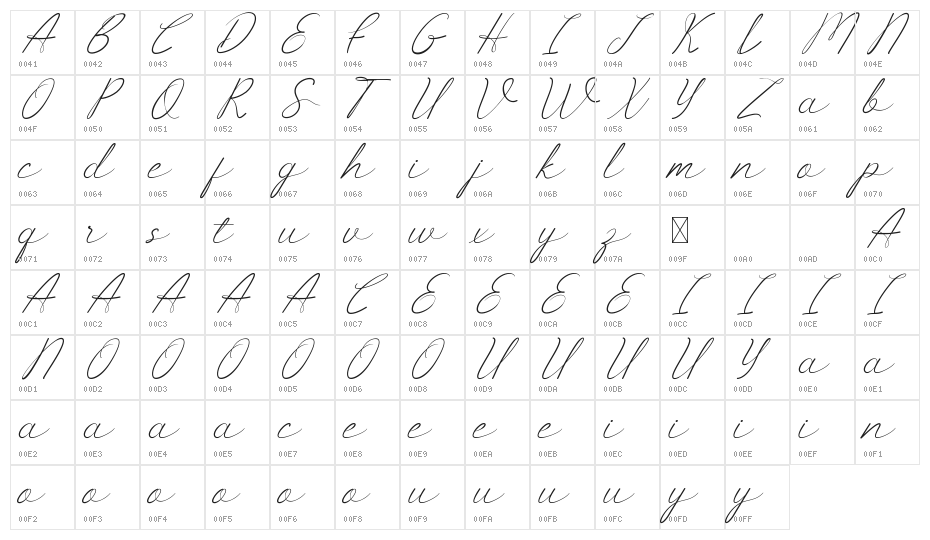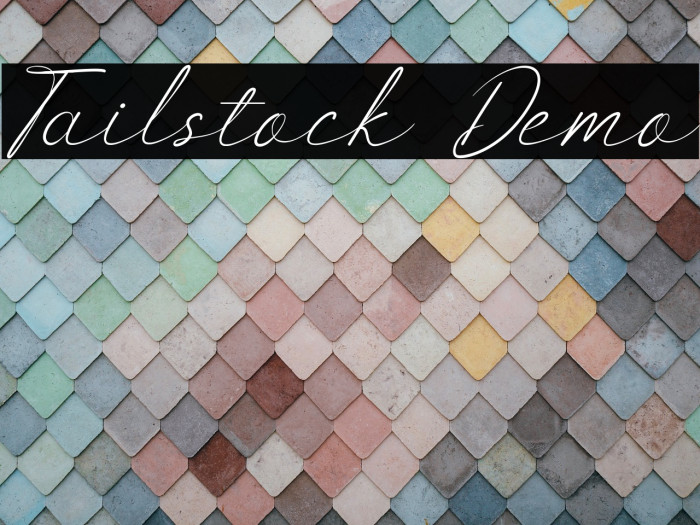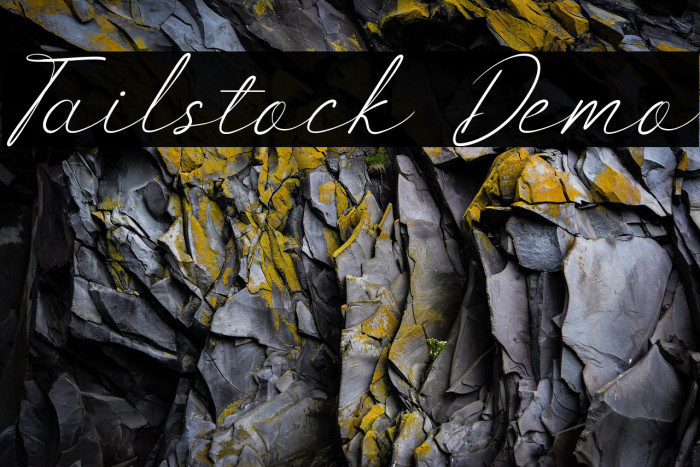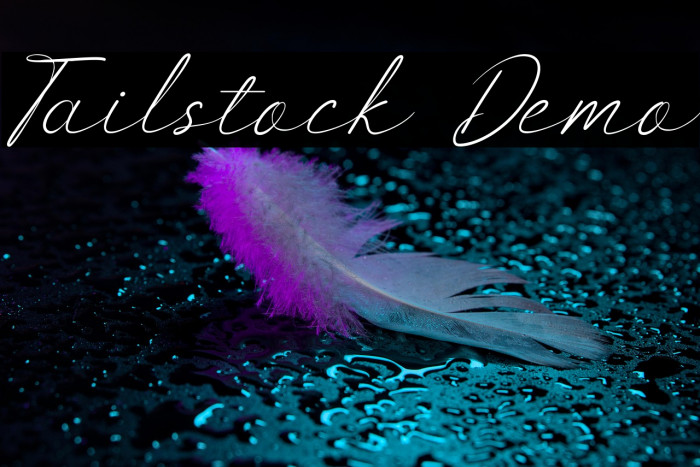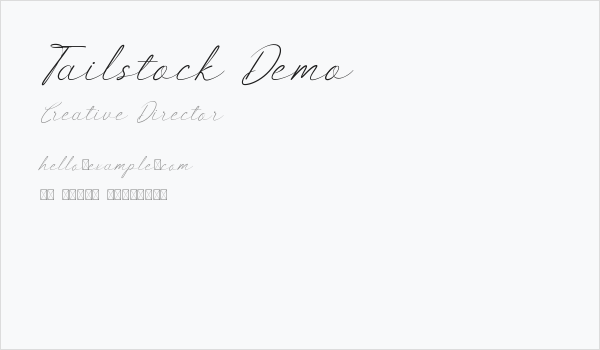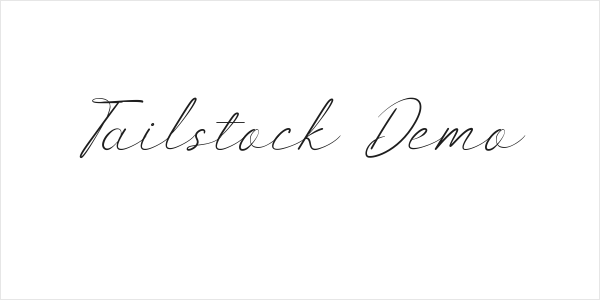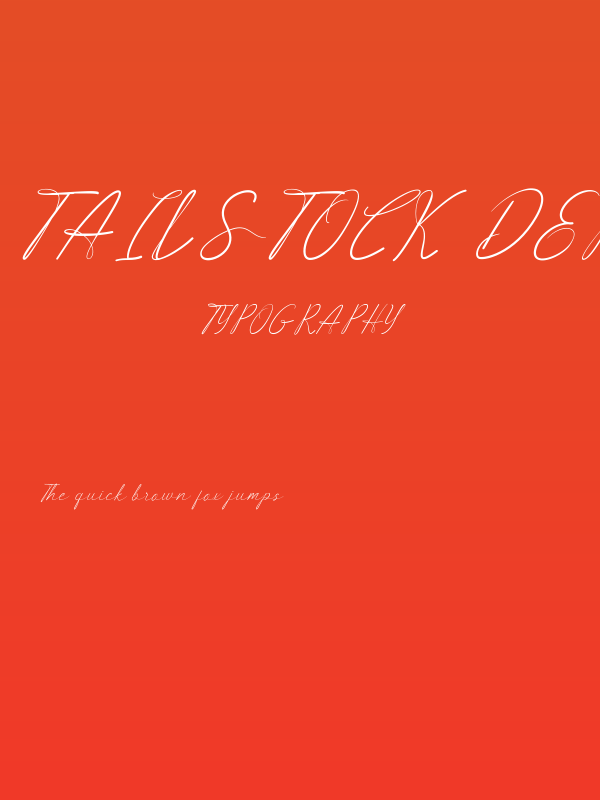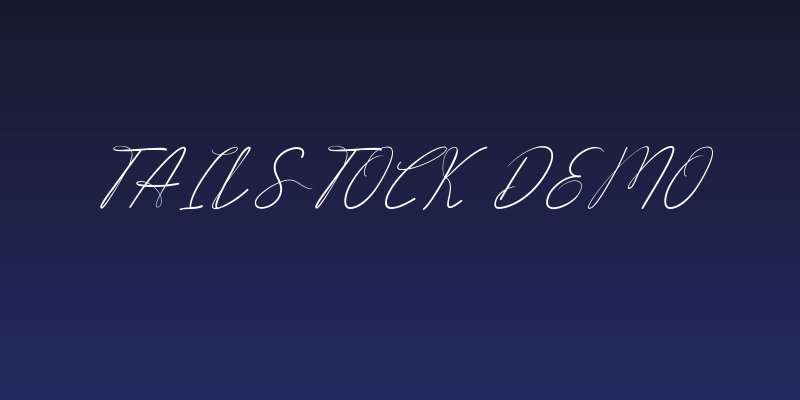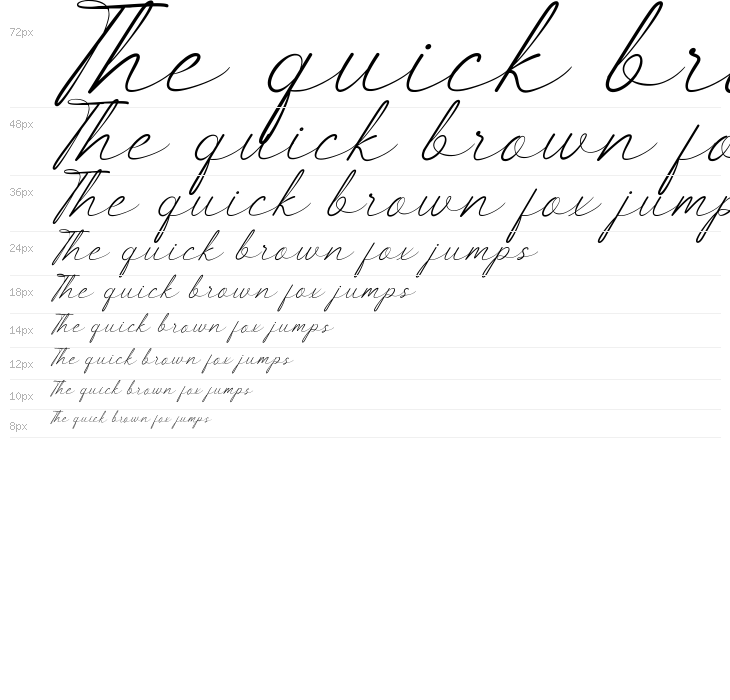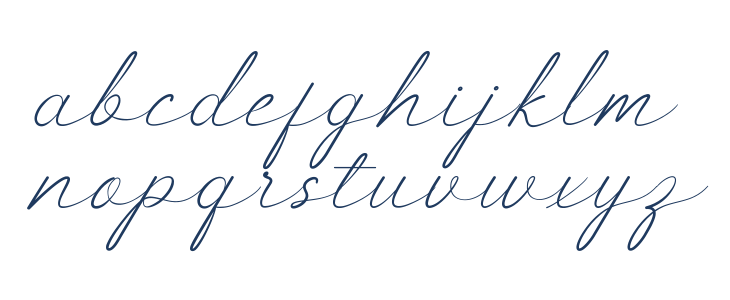
Tailstock Demo Font
Tailstock Demo Description
This elegant script font features a flowing, cursive style with delicate, elongated strokes that give it a sophisticated and graceful appearance. The letters are interconnected, creating a seamless and fluid look that mimics natural handwriting. The uppercase letters are slightly more ornate, with subtle flourishes that add a touch of flair, while the lowercase letters maintain a consistent and smooth flow. The numbers and special characters are designed to match the overall aesthetic, ensuring a cohesive appearance across all text. This font's refined style makes it ideal for formal invitations, elegant branding, and any project that requires a touch of class and sophistication.